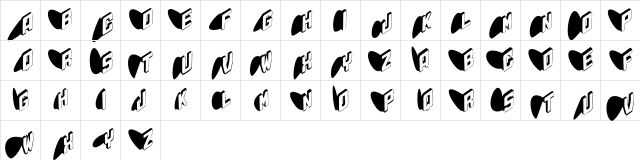
TypoShadows Regular
Design Context for TypoShadows Typeface
TypoShadows brings ornamental detail and strong personality to headlines and identities, where visual impact matters more than quiet functionality.
Font Pairing: Pair with a clean neutral sans-serif for body copy to let TypoShadows's character lead without overwhelming the composition.
Pro Tip: Use TypoShadows exclusively at display sizes — it was designed to be seen, not read at length. Let a neutral companion handle body copy.